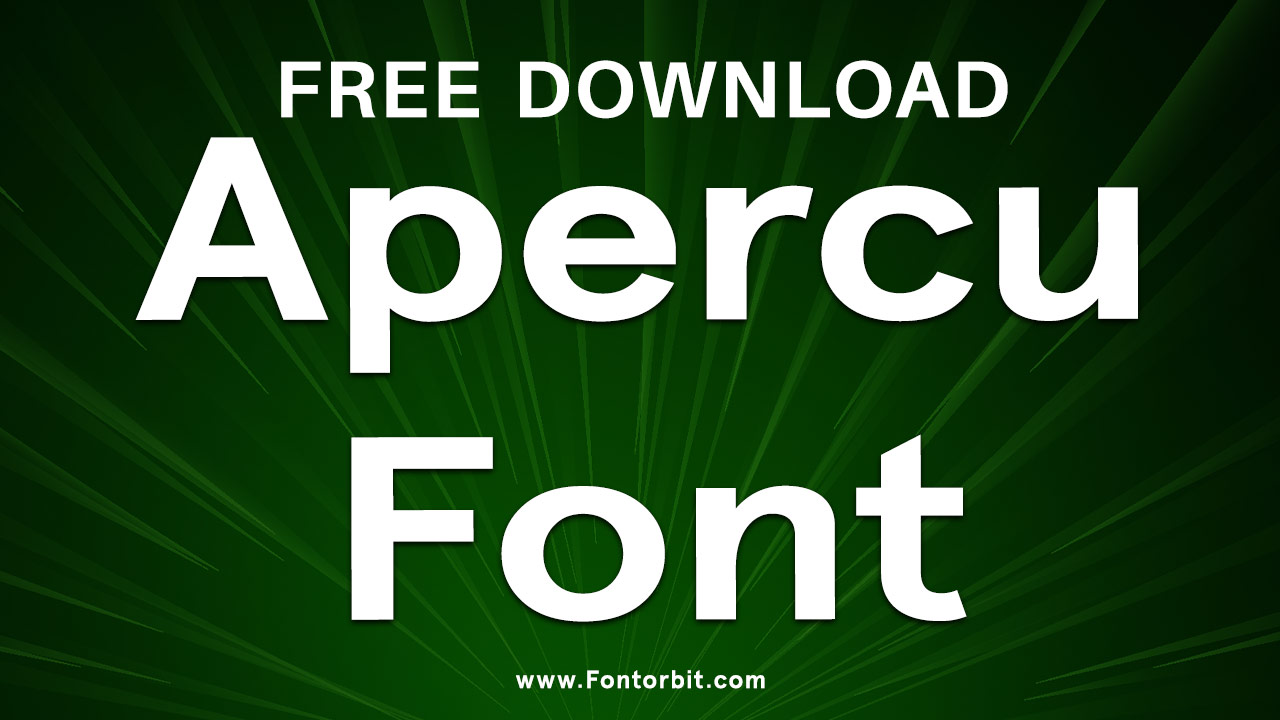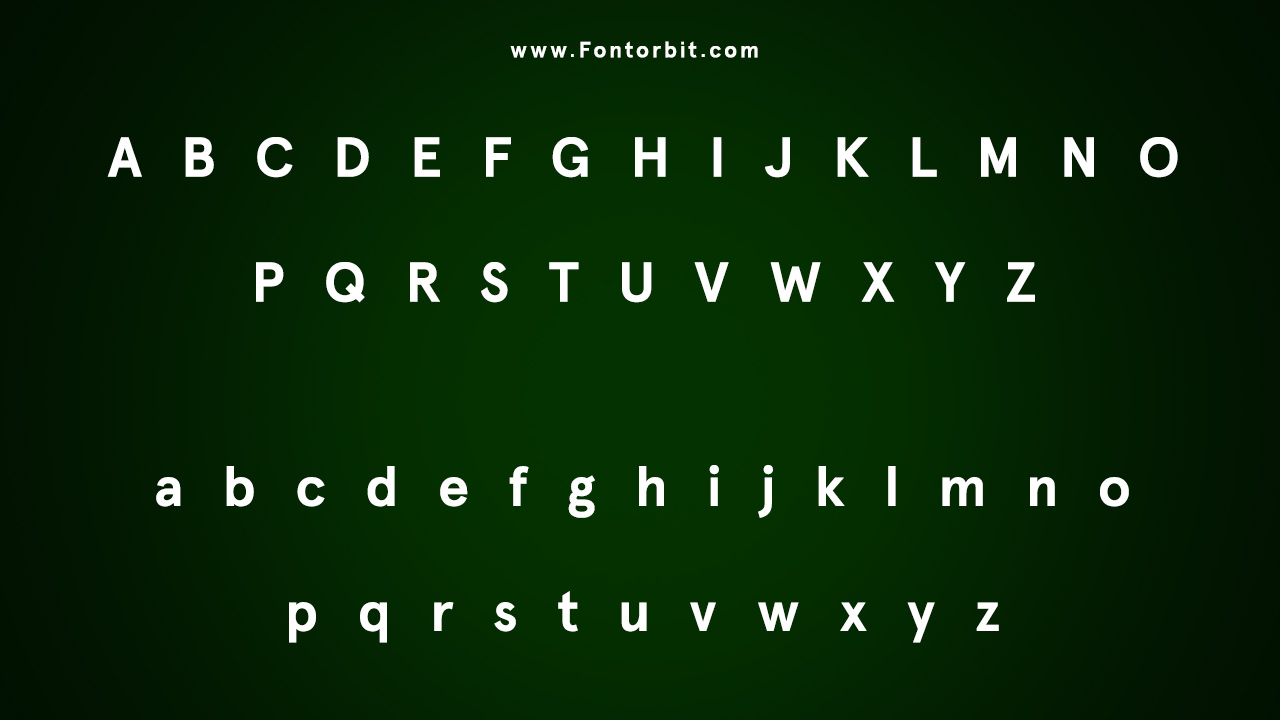
Apercu is a versatile and modern sans-serif font designed by Colophon Foundry, a British studio known for creating high-quality typefaces.
Initially published in 2010, the font quickly gained popularity for its clean and contemporary appearance. It belongs to the geometric sans-serif font family and is often praised for balancing precision and personality.
Apercu Font Family Includes
The Apercu font family provides a range of styles and weights, making it suitable for various applications, from digital design to printed materials. Here is a list of the font family:
- Apercu Regular
- Apercu Thin
- Apercu Thin Italic
- Apercu ExtraLight
- Apercu ExtraLight Italic
- Apercu Light
- Apercu Light Italic
- Apercu Italic
- Apercu Medium
- Apercu Medium Italic
- Apercu Bold
- Apercu Bold Italic
- Apercu ExtraBold
- Apercu ExtraBold Italic
- Apercu Black
- Apercu Black Italic
Notable Uses Of Apercu
Apercu has been used by well-known brands, media outlets, and institutions due to its minimalist yet impactful appearance. Its use can be seen across editorial design, branding, and web development. Some notable applications include:
- Branding for innovative tech companies
- Modern magazine layouts
- Websites with a clean and professional design
Where Should I Use Apercu?
Given its versatility, Apercu is perfect for both digital and print media. Here are a few key areas where this font excels:
- Websites and blogs that require a clean and professional design.
- Editorial content such as magazines and journals.
- Branding for tech companies, startups, and other modern businesses.
- User interfaces (UI) and mobile applications.
If you’re looking for free alternatives to Apercu, here are some similar fonts you can use:
- HK Grotesk
- Satoshi
- Poppins
- Work Sans
- Raleway
- Nunito
Apercu is a strong choice for designers and developers looking for a font that combines geometric precision with a human touch. Its use across various industries highlights its versatility, making it a go-to option for branding, UI, and print design. If you are considering using Apercu but are looking for free alternatives, several fonts mimic its style while maintaining functionality.
3.Is Apercu Good For Logos?
Yes, its clean lines make it an excellent choice for logos.
4.Does Apercu Support Multiple Languages?
Yes, Apercu supports a wide range of languages.
5.What Google Font Is Similar To Apercu?
A good Google Font alternative to Apercu is Poppins or Raleway.
6.What Fonts Are Similar To Apercu Pro Regular?
Fonts similar to Apercu Pro Regular include Circular, Söhne, and Nunito.